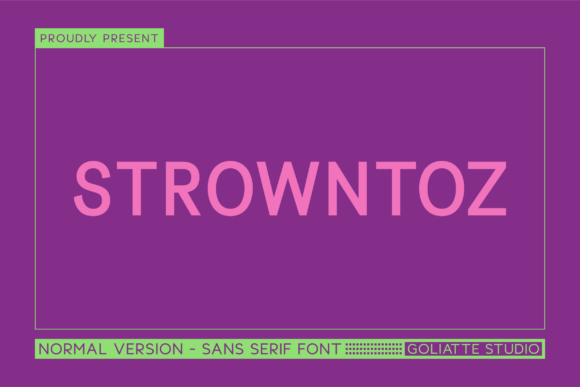
Discover the Power of Strowntoz Font: Elevate Your Design with Modern Simplicity
In the world of typography, fonts play a crucial role in conveying messages, expressing emotions, and creating lasting impressions. Among the numerous typefaces available, Strowntoz stands out as a sleek sans-serif font that embodies modern simplicity and confident geometric precision. In this article, we’ll delve into the features, benefits, and applications of Strowntoz, exploring how it can elevate your design projects and help you achieve clarity, impact, and style.
Key Features of Strowntoz Font
- Clean and Evenly Weighted Strokes: Strowntoz boasts clean, evenly weighted strokes that contribute to its bold yet versatile personality.
- Sharp Edges: The font’s sharp edges add a touch of sophistication and precision, making it perfect for projects that demand clarity and impact.
- Balanced Proportions: Strowntoz features balanced proportions that allow designers to explore creativity across various mediums, including print, web, and packaging.
- Minimalist Charm: The font’s minimalist charm makes it an excellent choice for designers seeking a contemporary, professional tone.
Applications of Strowntoz Font
Strowntoz is a versatile font that can be applied to a wide range of design projects, including:
- Attention-Grabbing Headlines: Use Strowntoz to create bold, eye-catching headlines that capture the reader’s attention and convey your message with confidence.
- Sleek Digital Interfaces: The font’s clean and modern design makes it perfect for digital interfaces, such as websites, mobile apps, and software.
- Sophisticated Branding: Strowntoz is an excellent choice for branding projects that require a professional, contemporary tone, helping you establish a strong visual identity.
- Print and Packaging: The font’s balanced proportions and minimalist charm make it suitable for print and packaging design, allowing you to create visually appealing materials that resonate with style and confidence.
Benefits of Using Strowntoz Font
By incorporating Strowntoz into your design projects, you can enjoy several benefits, including:
- Improved Clarity: The font’s clean design and sharp edges ensure that your message is conveyed with clarity and precision.
- Enhanced Impact: Strowntoz’s bold yet versatile personality helps you create attention-grabbing designs that leave a lasting impression.
- Versatility: The font’s balanced proportions and minimalist charm make it suitable for a wide range of design projects and mediums.
- Professional Tone: Strowntoz’s contemporary, professional tone helps you establish a strong visual identity and credibility.
Design Tips for Using Strowntoz Font
To get the most out of Strowntoz, consider the following design tips:
- Experiment with Font Sizes: Strowntoz works well in various font sizes, from large headlines to smaller body text.
- Play with Color: The font’s clean design and sharp edges make it suitable for a wide range of color schemes and combinations.
- Balance with Images: Strowntoz pairs well with images and graphics, creating a harmonious balance between text and visuals.
- Use for Emphasis: The font’s bold personality makes it perfect for emphasizing key points, highlighting important information, or creating attention-grabbing calls-to-action.
Strowntoz and Typography Trends
Strowntoz is a font that aligns with current typography trends, which emphasize:
- Simplicity: The font’s clean design and minimalist charm reflect the growing trend towards simplicity in typography.
- Geometric Precision: Strowntoz’s sharp edges and geometric precision make it a great fit for designs that require a modern, precise feel.
- Versatility: The font’s balanced proportions and adaptability make it suitable for a wide range of design projects and mediums.
Strowntoz is a powerful sans-serif font that offers a unique blend of modern simplicity and confident geometric precision. Its clean design, sharp edges, and balanced proportions make it perfect for a wide range of design projects, from attention-grabbing headlines to sleek digital interfaces and sophisticated branding. By incorporating Strowntoz into your design workflow, you can elevate your projects, achieve clarity and impact, and create visually appealing materials that resonate with style and confidence.